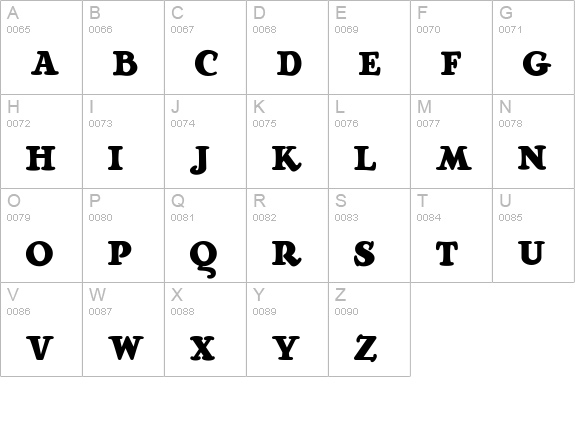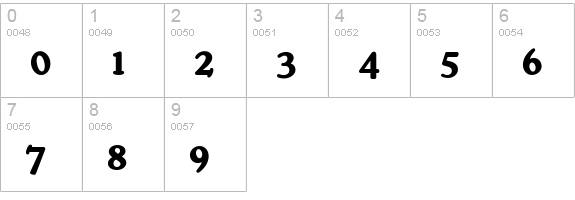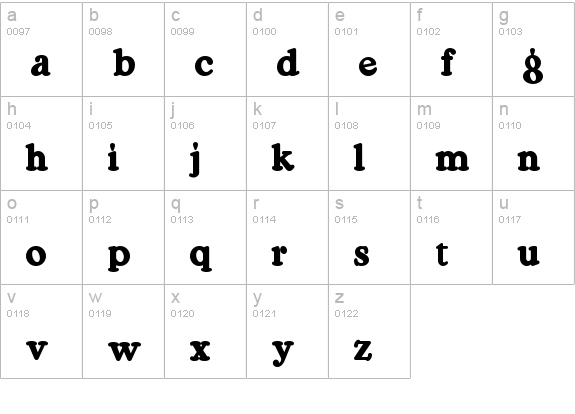
Ragg Mopp NF Font Details
Introducing Ragg Mopp NF, a whimsical and playful font that brings a touch of nostalgia and creativity to your projects. This delightful font features quirky hand-drawn characters with a unique charm that is sure to make your designs stand out. Perfect for adding a fun and lighthearted touch to invitations, posters, greeting cards, and more. What's even better is that Ragg Mopp NF is completely free to download! You can get your hands on this charming font at FontsMarket.com and start using it in your projects today. Don't miss out on the opportunity to add a touch of whimsy to your designs with Ragg Mopp NF - download it now and let your creativity shine!